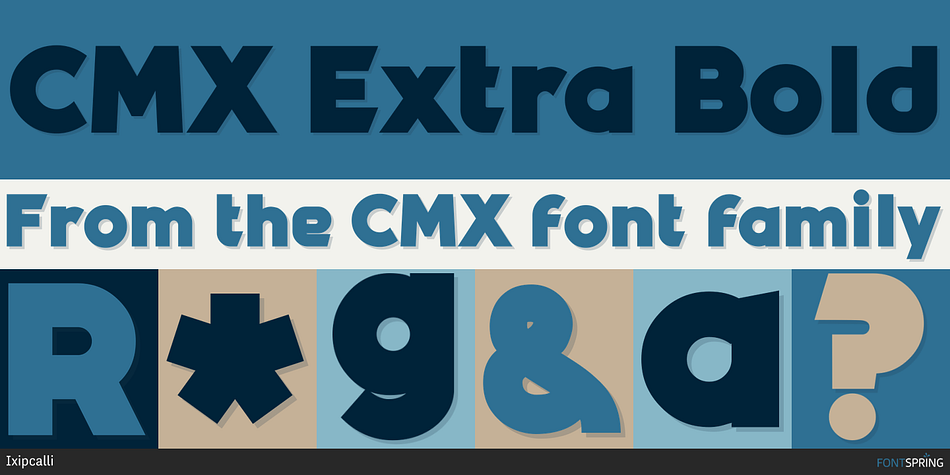
CMX Extra Bold
Designed by Francisco Arellano, CMX is a sans serif font family. This typeface has twenty styles and was published by Ixipcalli.
The CMX typeface was developed as a tribute to a unique -type- style that demarcates Mexican cities, especially attributed to Mexico City. Its name means “Mexican City (CMX)” which encompasses not only Mexico City, but all the cities, towns and districts of the country. This typeface has a gothic sans serif style, clean and easy to visualize. Its characters offer two types of use, formal and informal. It consists of twenty styles divided into normal and alternate (informal). Each one contains five weights, Thin, Light, Normal, Bold and Extra Bold; adding for each style its italic form. This typeface is perfectly suited for any graphic design use, suggesting signage, corporate and editorial where large text needs to be emphasized.